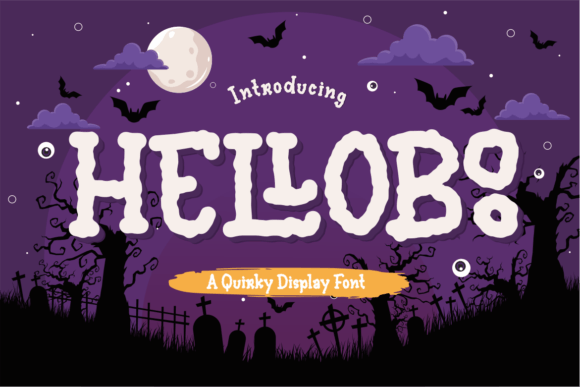
Get ready to unleash your creativity with Helloboo, the captivating display font that will ignite your Halloween designs with a touch of playful quirkiness. Step into a realm where imagination knows no bounds as this enchanting typeface transports you to a world of enchanting possibilities.
Helloboo is not just a font; it's a gateway to a universe where numbers come alive with personality. Crafted with the magic of Cricut, this extraordinary font empowers you to transform ordinary digits into extraordinary works of art. Let your imagination soar as you craft stunning Halloween-themed designs that will leave a lasting impression.
With Helloboo, the possibilities are endless. Dive into a world of enchanting invitations, eye-catching posters, and captivating social media graphics – all adorned with the unmistakable charm of this remarkable display font. Its playful spirit will infuse your designs with a touch of whimsy, while its versatility empowers you to create masterpieces that are uniquely yours.
Whether you're a seasoned designer or just starting your creative journey, Helloboo is the perfect companion. Its user-friendly nature makes it accessible to all, while its captivating style will elevate your designs to new heights. So, embrace the magic of Helloboo and let your creativity run wild!
Features:
- Enchanting display font perfect for Halloween-themed designs
- Unleash your creativity with endless possibilities
- Captivating style that will elevate your projects
- Perfect for invitations, posters, social media graphics, and more
- User-friendly and accessible for all skill levels